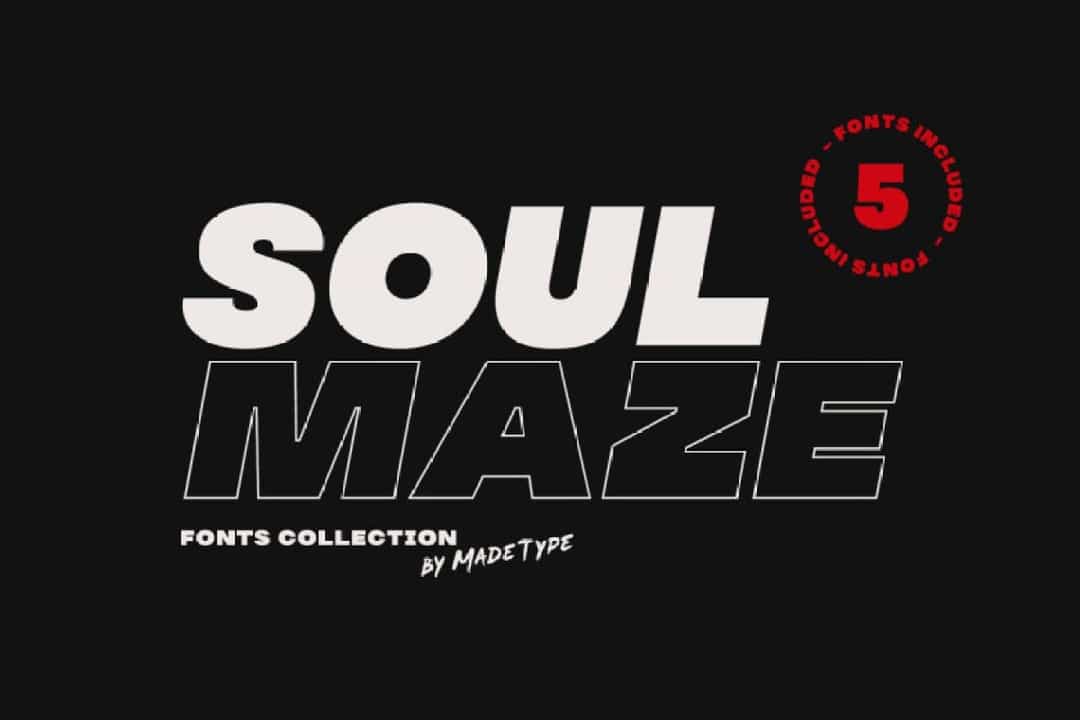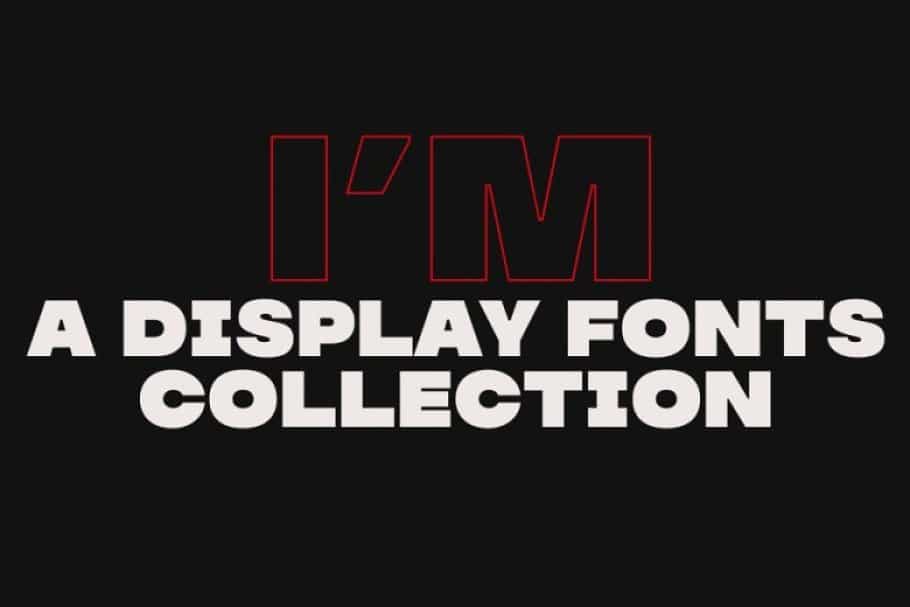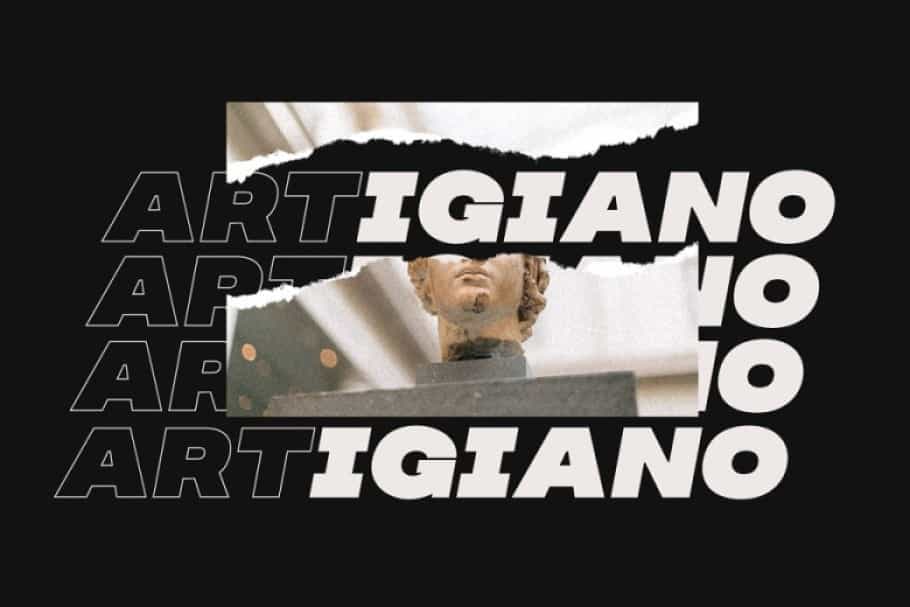
Introducing the Soulmaze Font! It is designed and shared by MadeType. MADE Soulmaze Font Collection – Famous for heavy weight and its love design, plus high-accuracy optimization, delivers sharp, modern and effective words, also works awesome for big statement. The font designer was influenced by a dream about a powerful typeface that is fixed, there, smooth, and balanced.